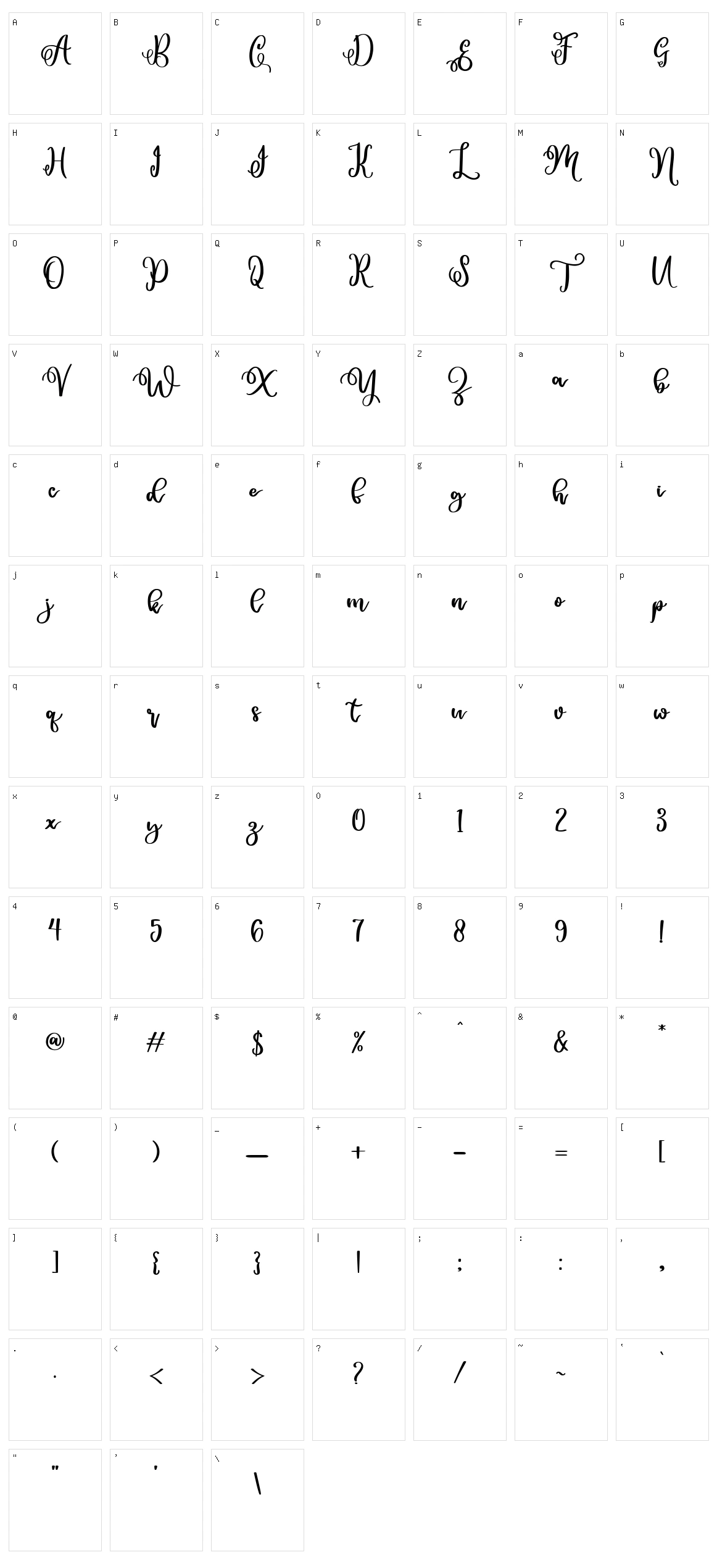
The free font Falena is carefully designed by niyos, showcasing a thoughtful balance of creativity and usability and falls under the Script font style. When you download the ZIP file, it contains only 69.16 KB of font files, making it lightweight and quick to download. Please review the license details below to understand permitted usage and distribution rights. If license information is not available, we recommend using this font for personal projects only or contacting the author directly for commercial usage permissions.